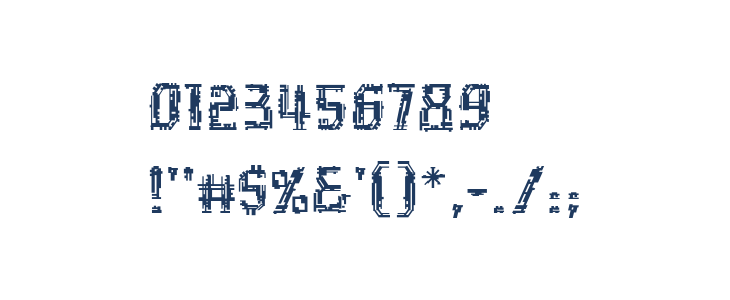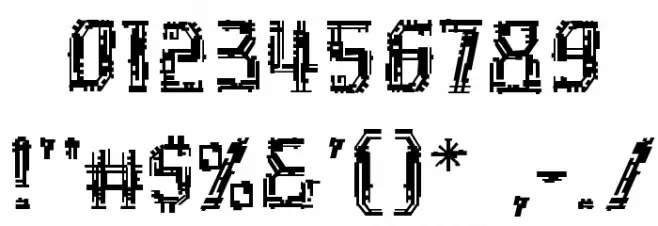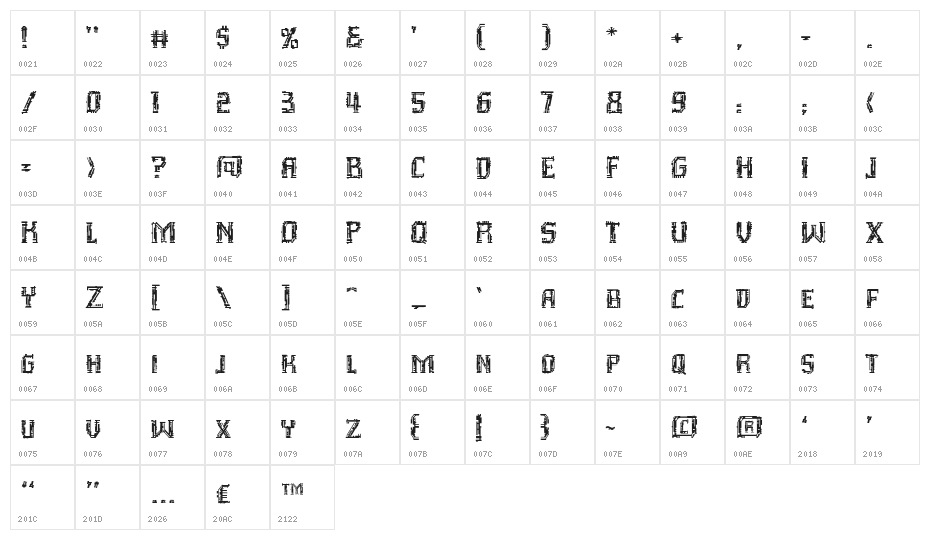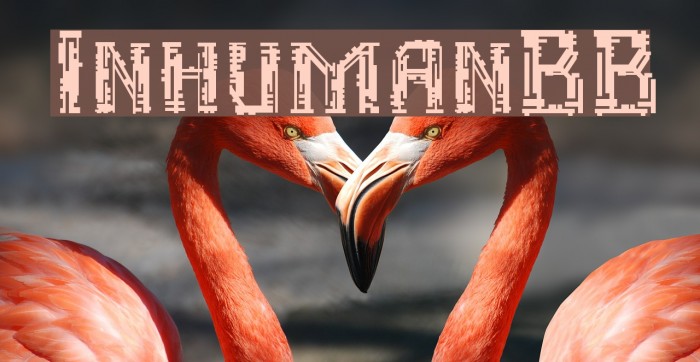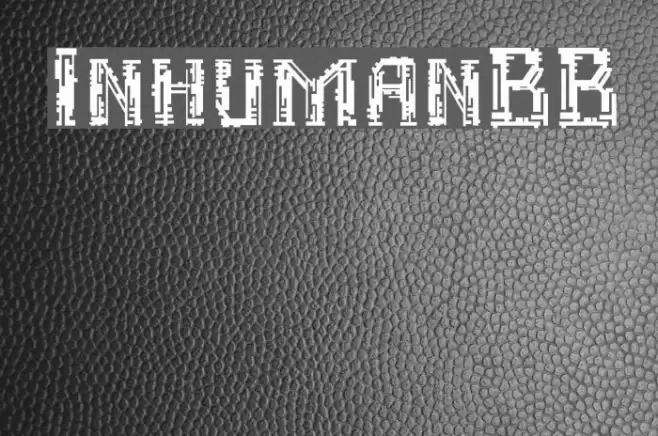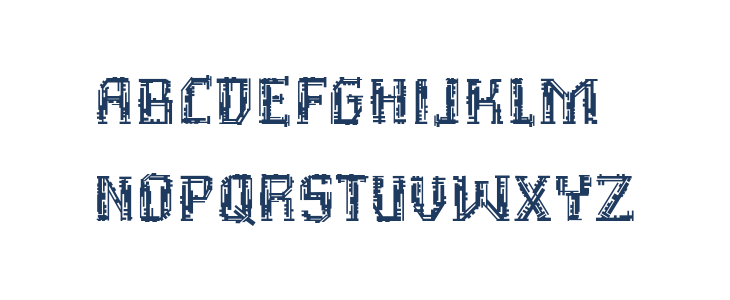
InhumanBB Font
InhumanBB Description
This font features a highly decorative and intricate design, characterized by a pixelated, digital aesthetic. Each character is composed of fragmented, block-like elements that create a sense of movement and complexity. The uppercase and lowercase letters maintain a consistent style, with sharp angles and a futuristic appearance. The numbers and special characters follow the same design principles, ensuring a cohesive look across all glyphs. This font's unique style makes it stand out, offering a bold and edgy visual impact.
| Proposed Projects | Ideal for video game titles, tech-themed posters, digital art projects, and any design requiring a modern, edgy look. |